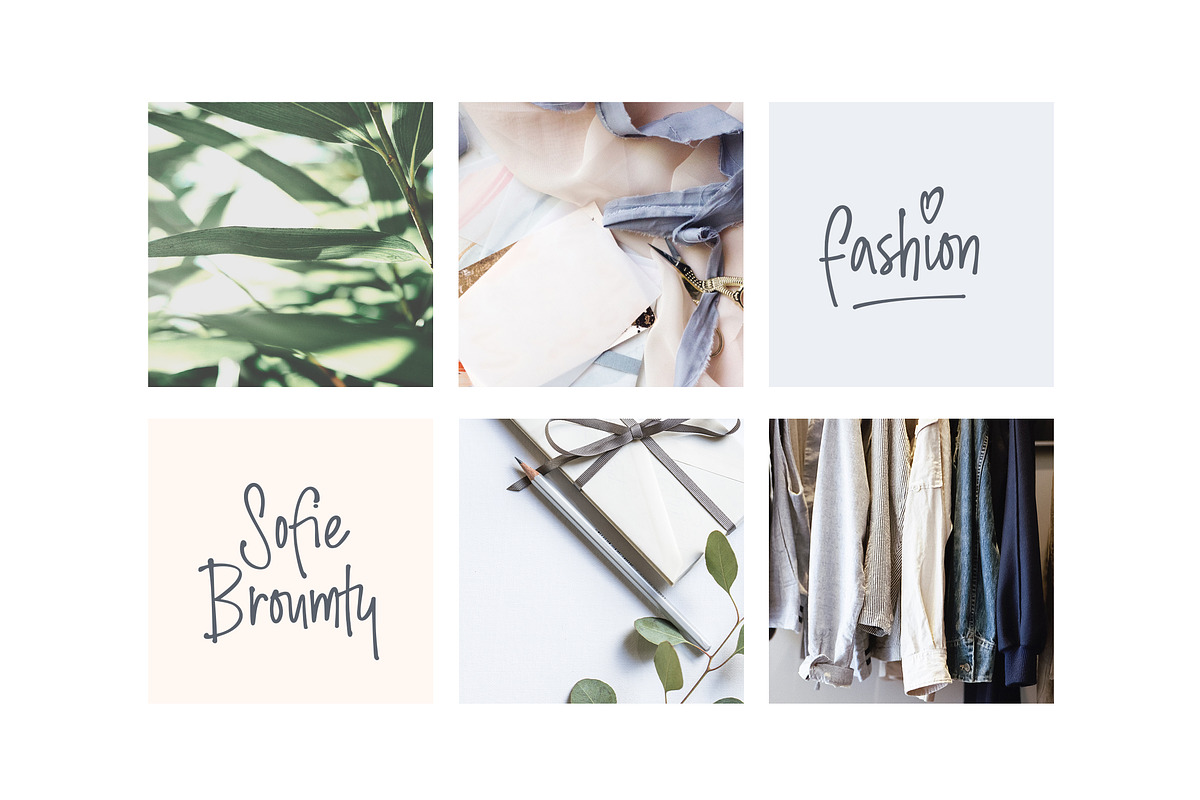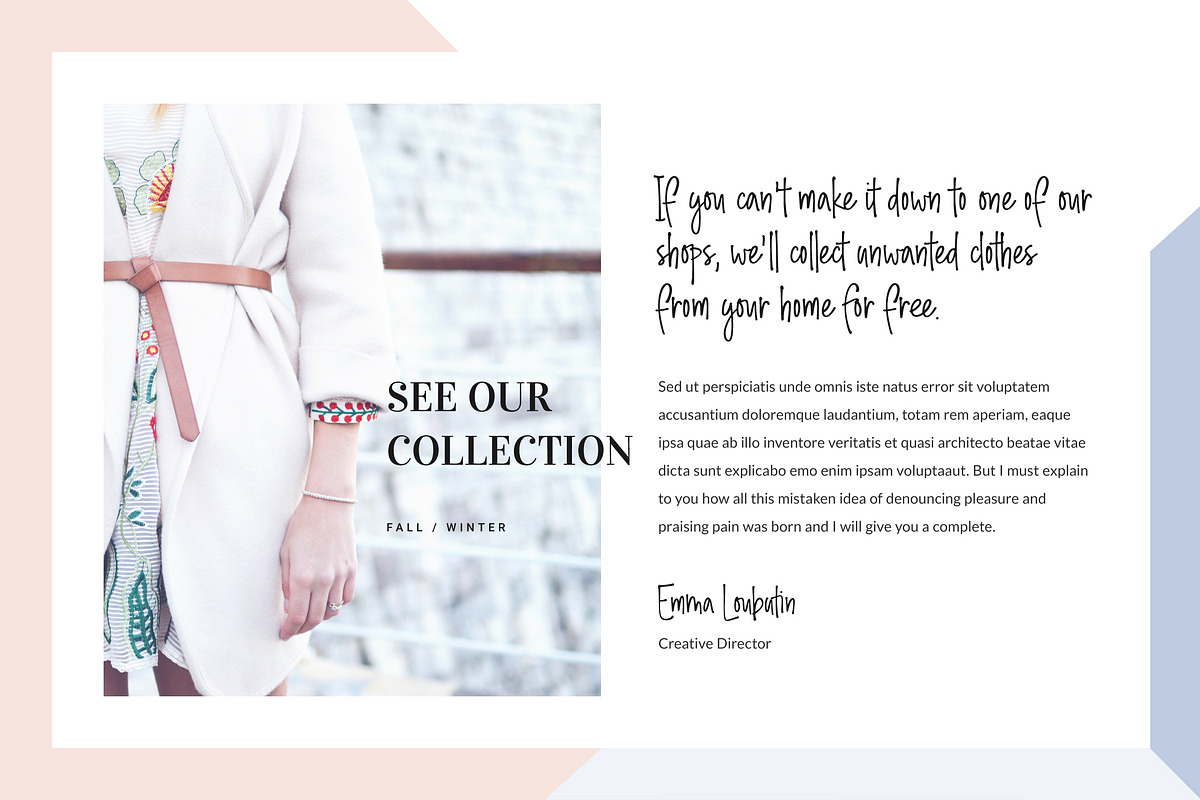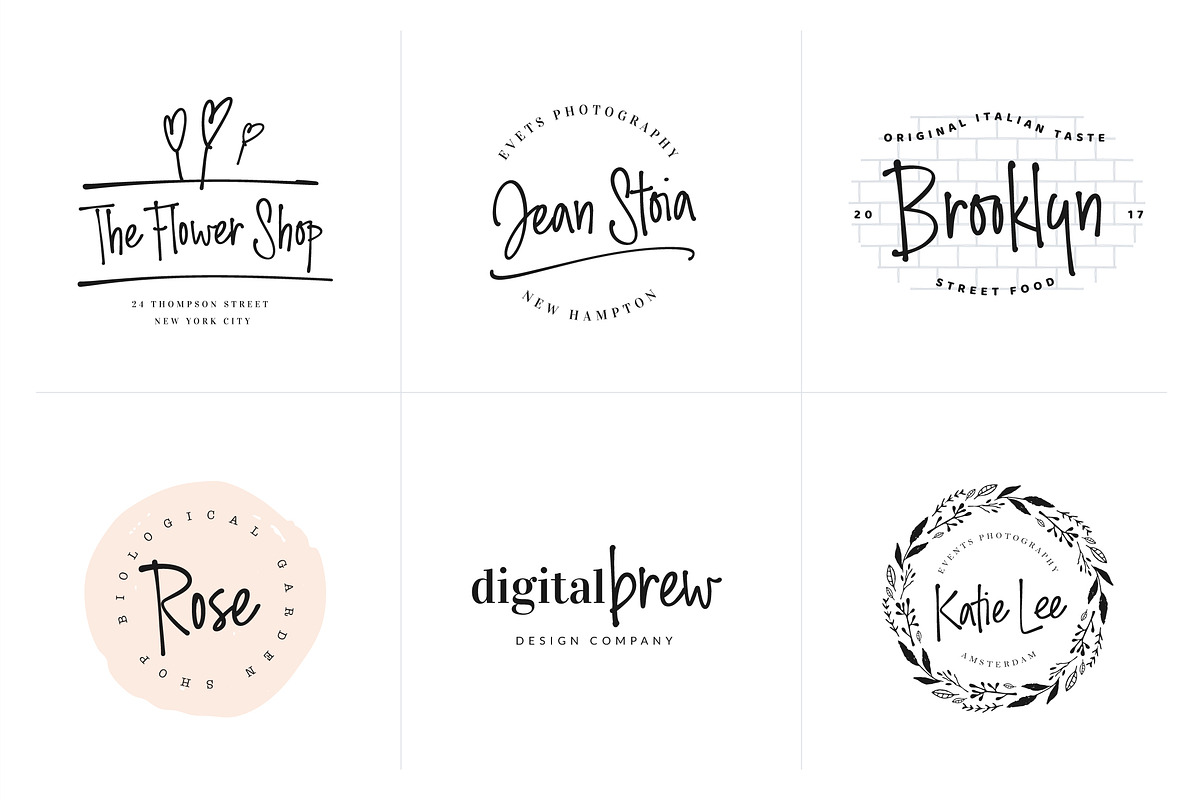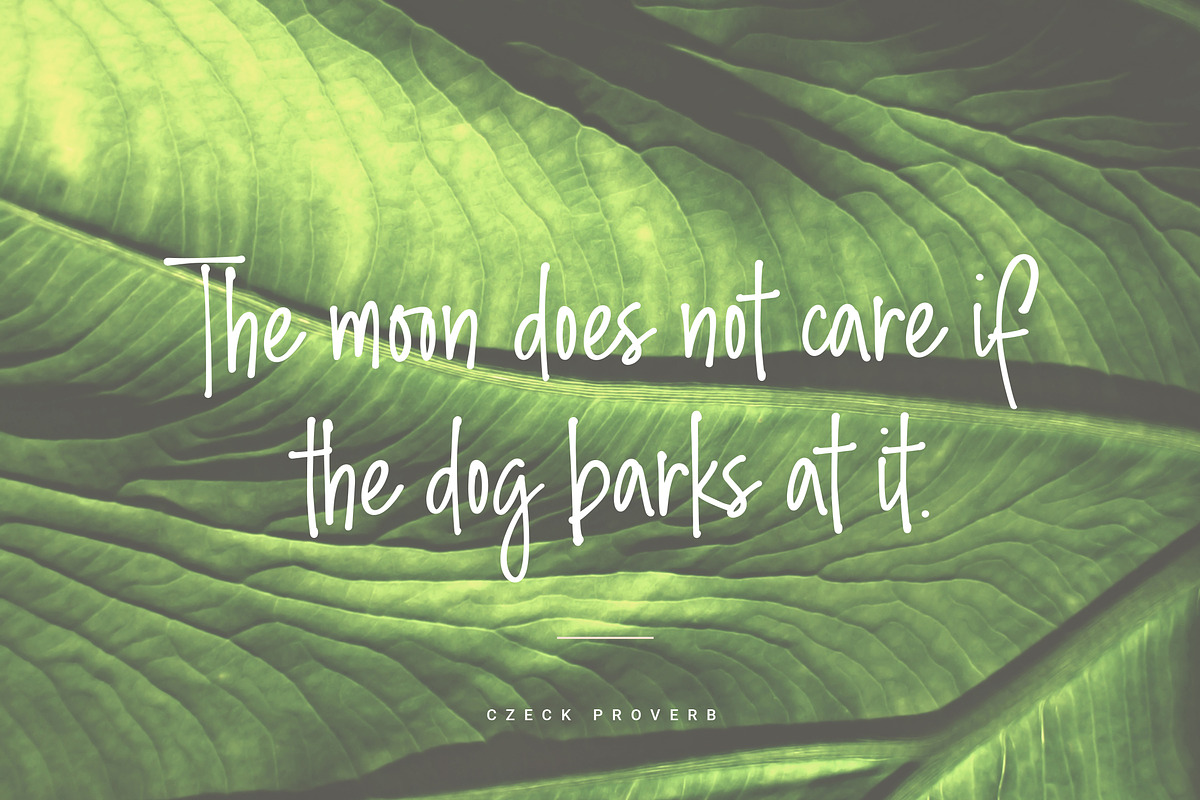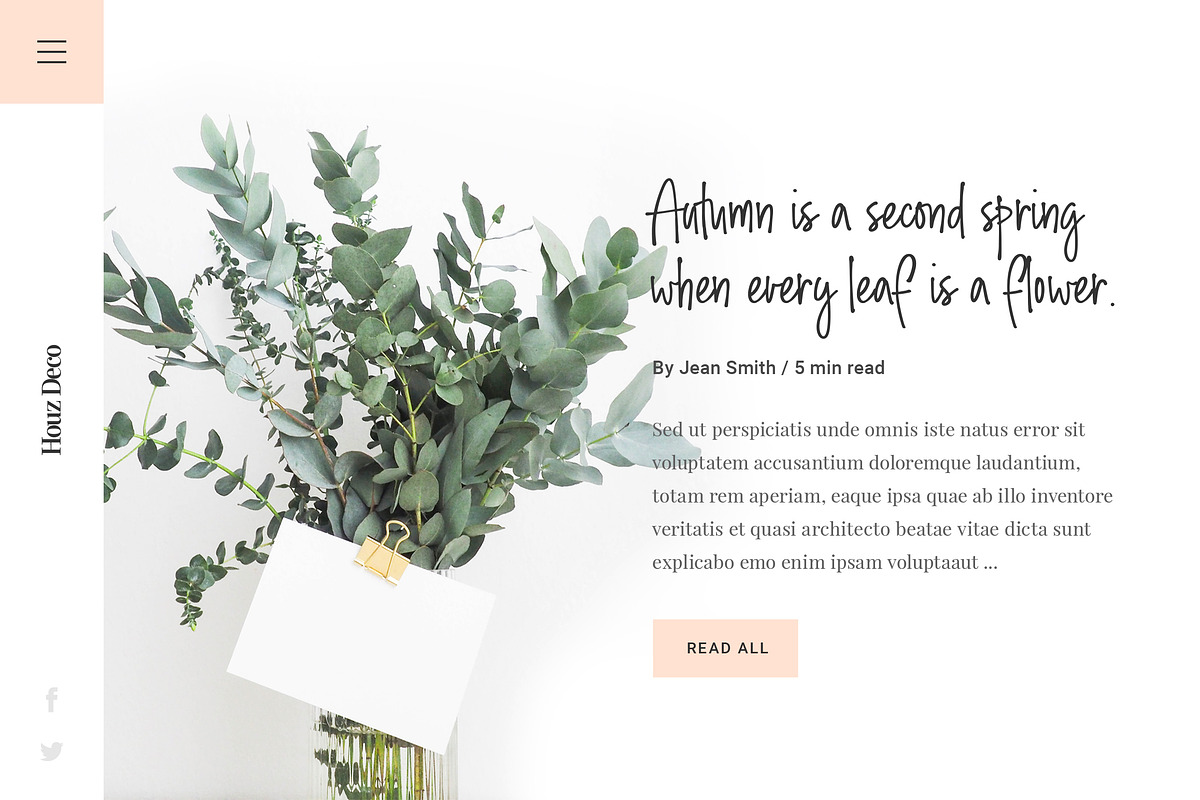
Ding Dong Handwritten Font + Logos
Ding Dong Handwritten Font is a cool and modern straight handwritten font. It's unique handwritten look makes it perfect for use in all your design projects be it logos, signatures, labels, packaging design, blog headlines. Using Ding Dong will definitely make your text stand out.
Ding Dong comes with upper and lowercase Basic Characters, Numbers, Marks and Punctuation. Diacritics are also available for Western and Central European Languages. As a feature you have also the standard Double Letters Ligature, Special Ligatures, Alternates, Swashes and Illustrations.